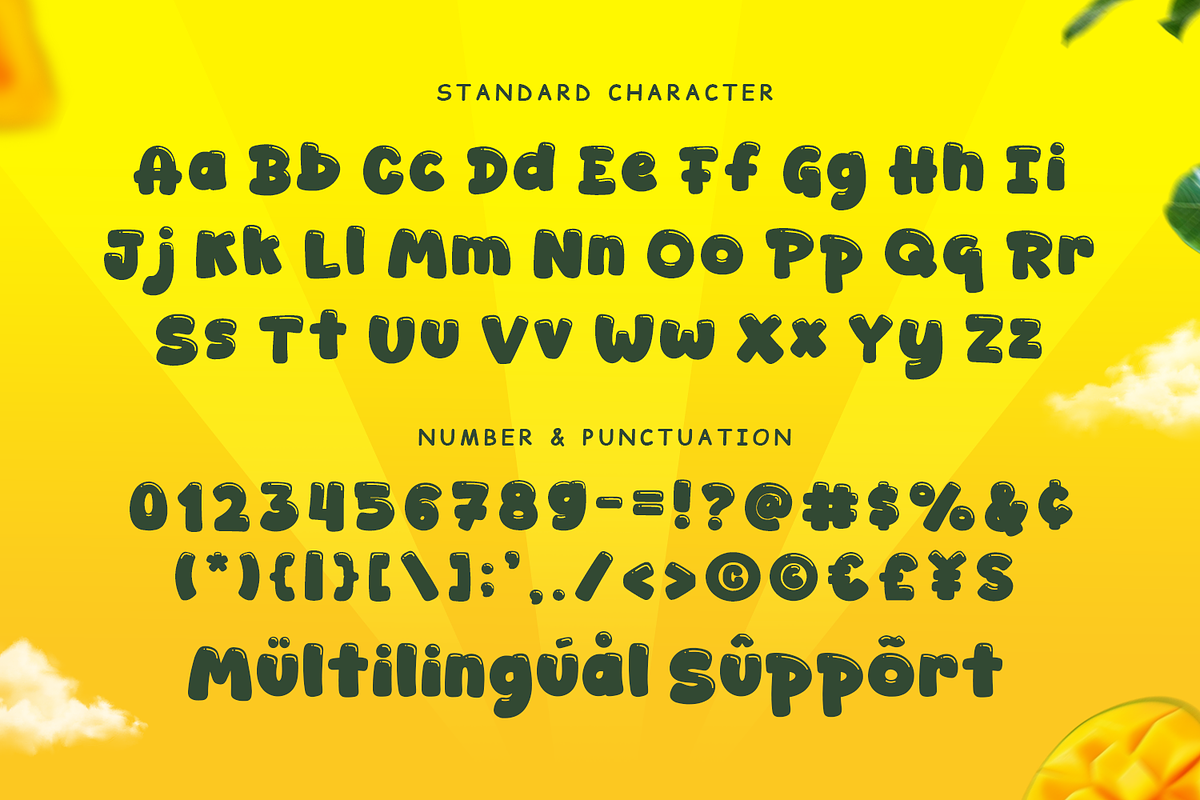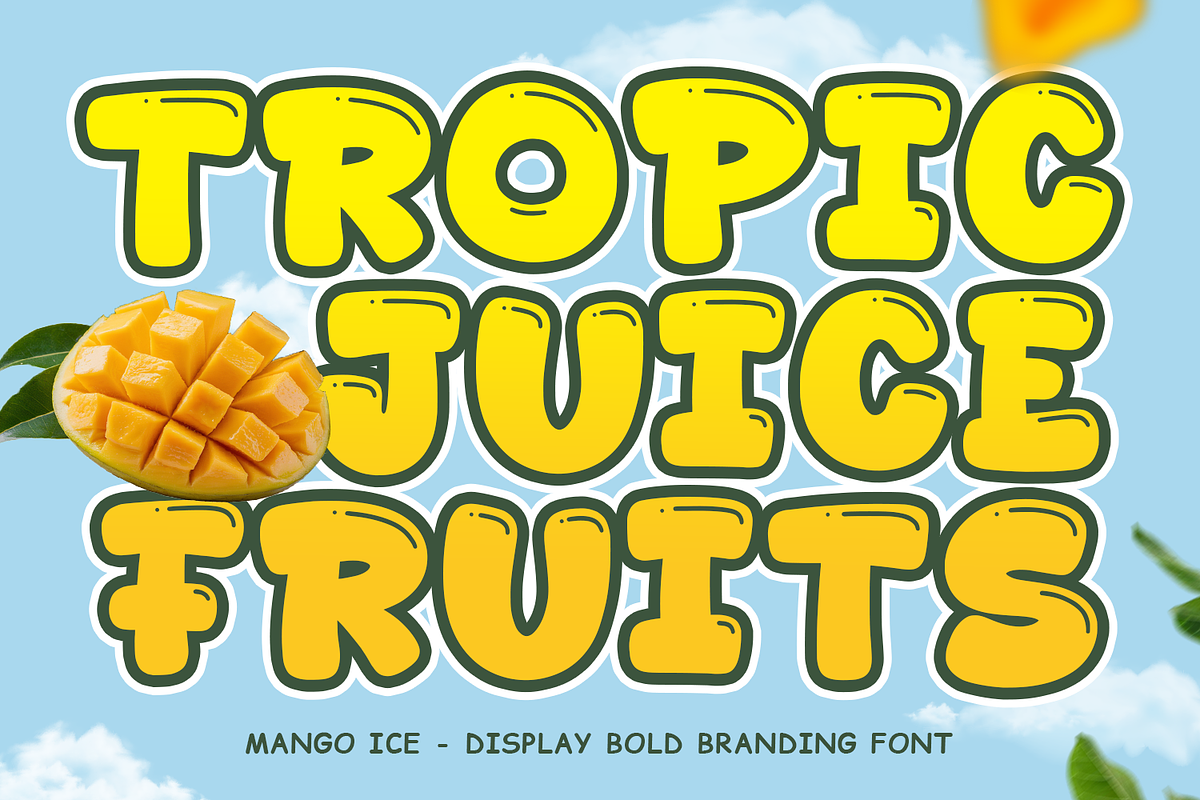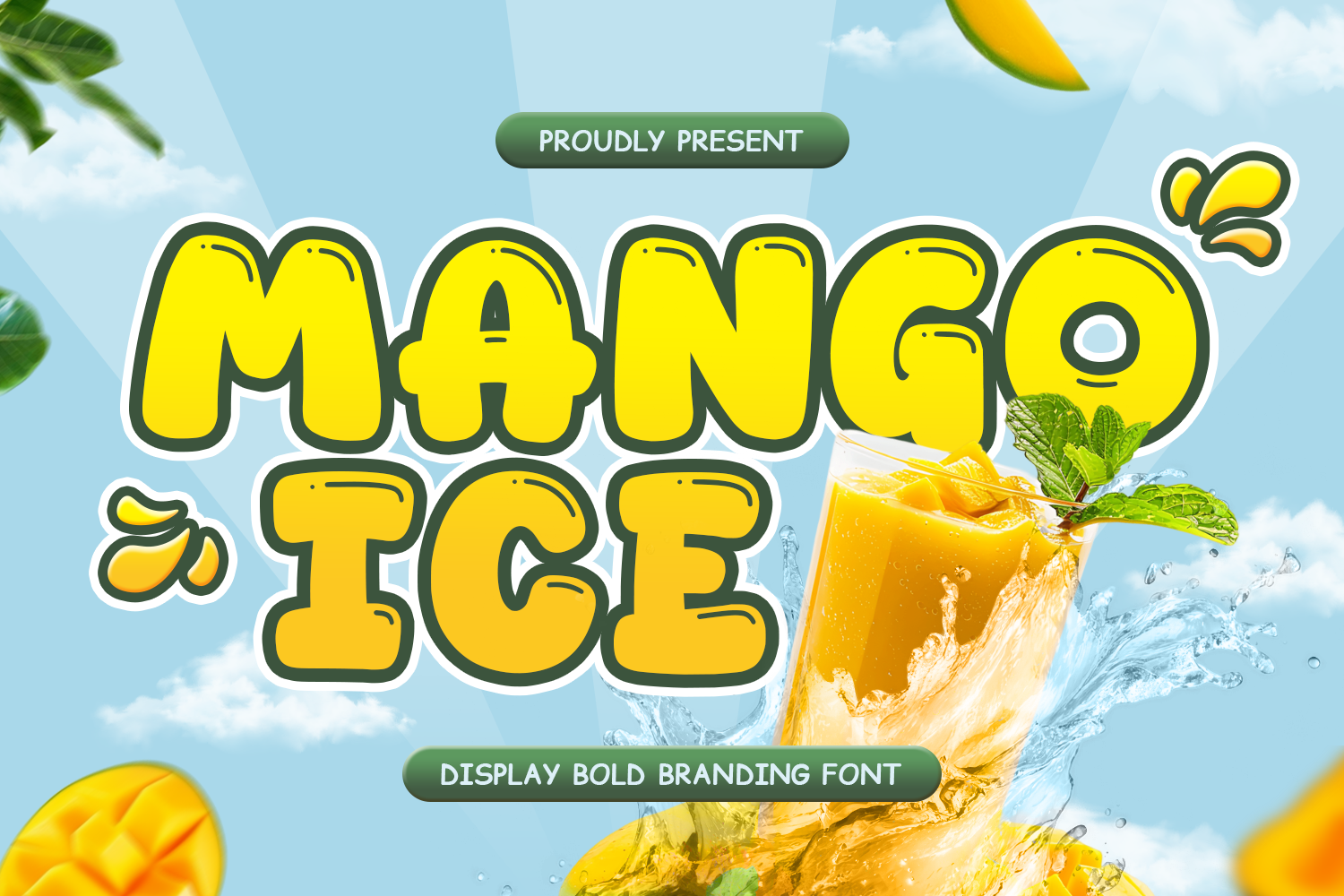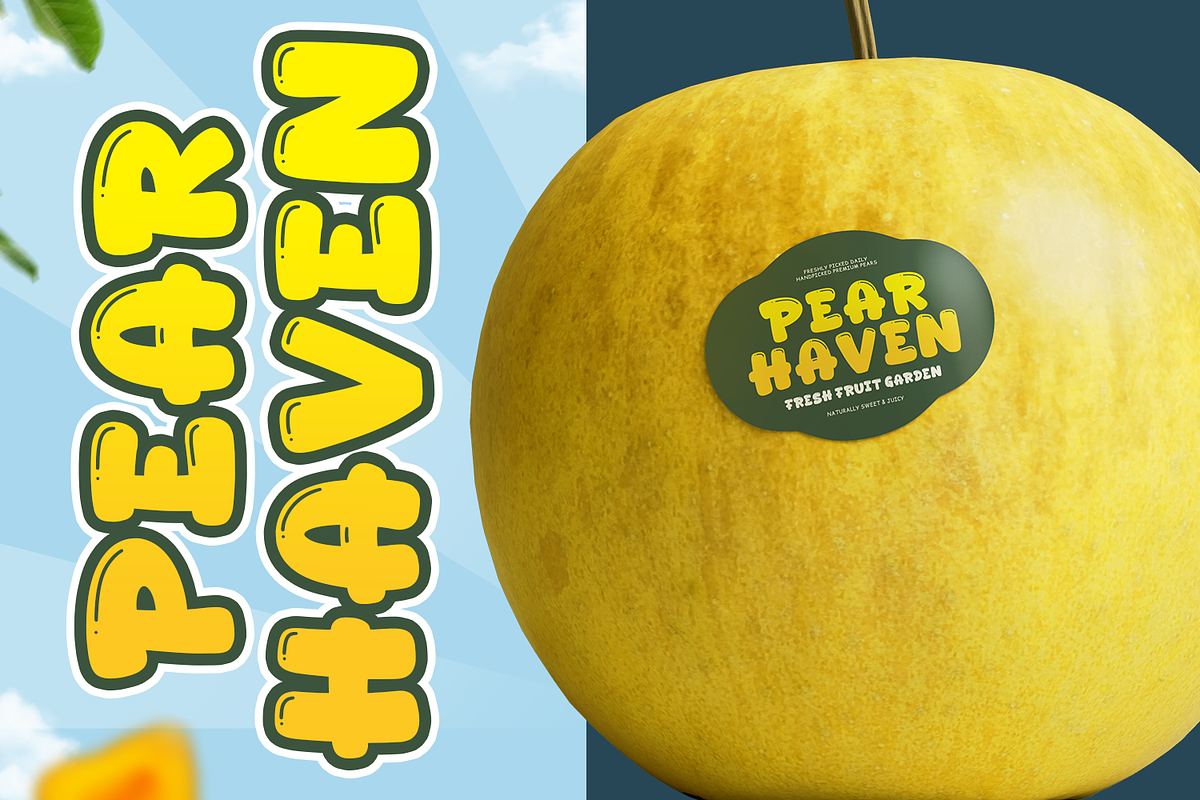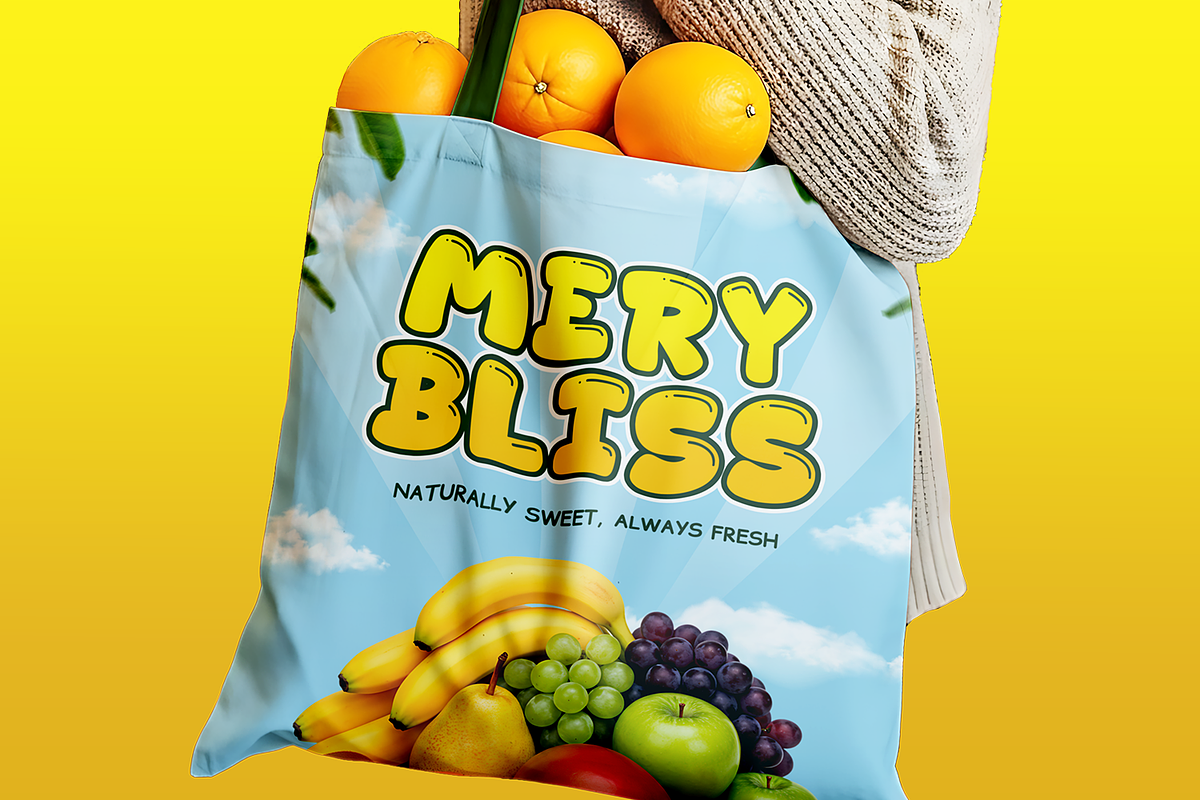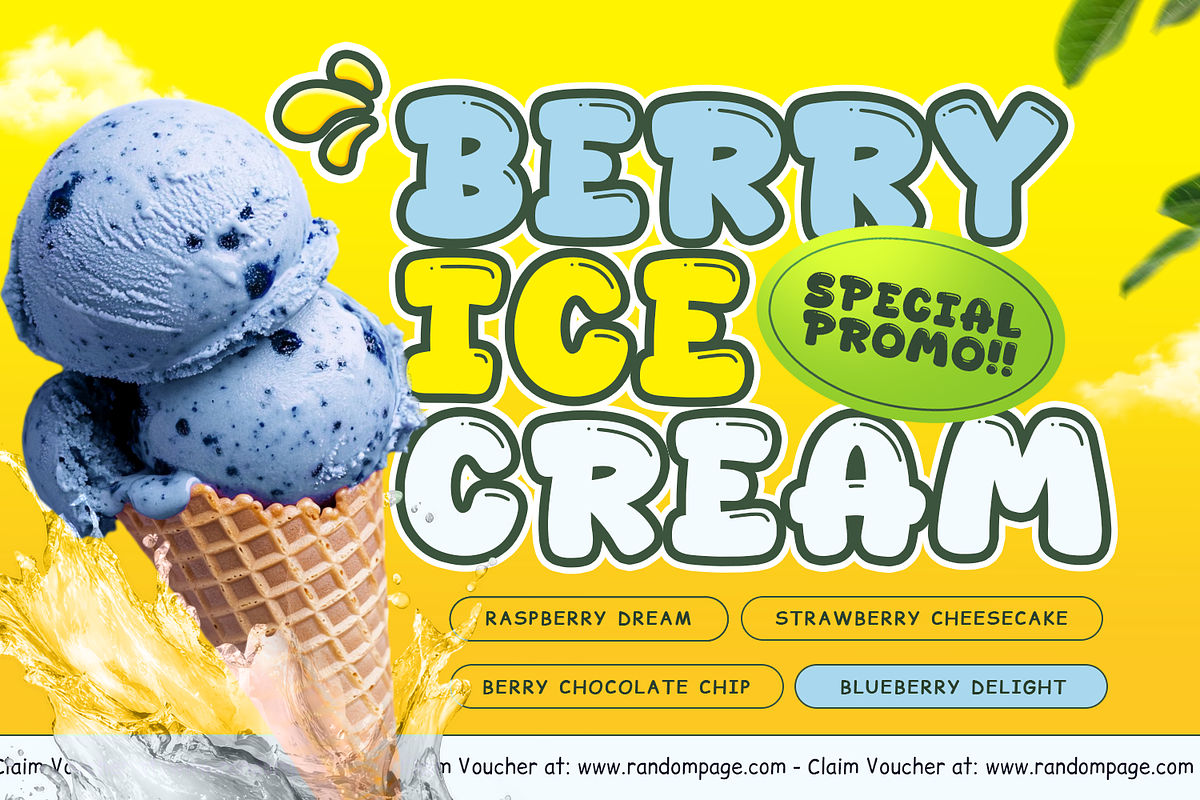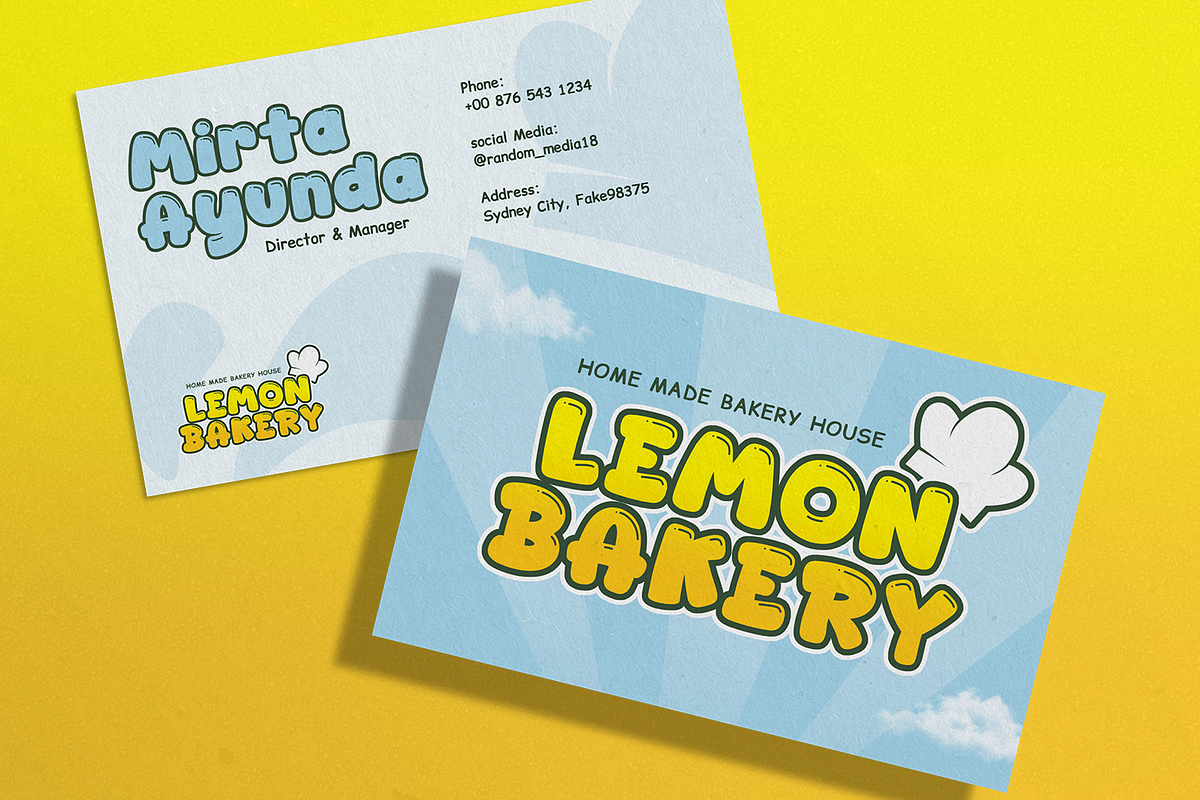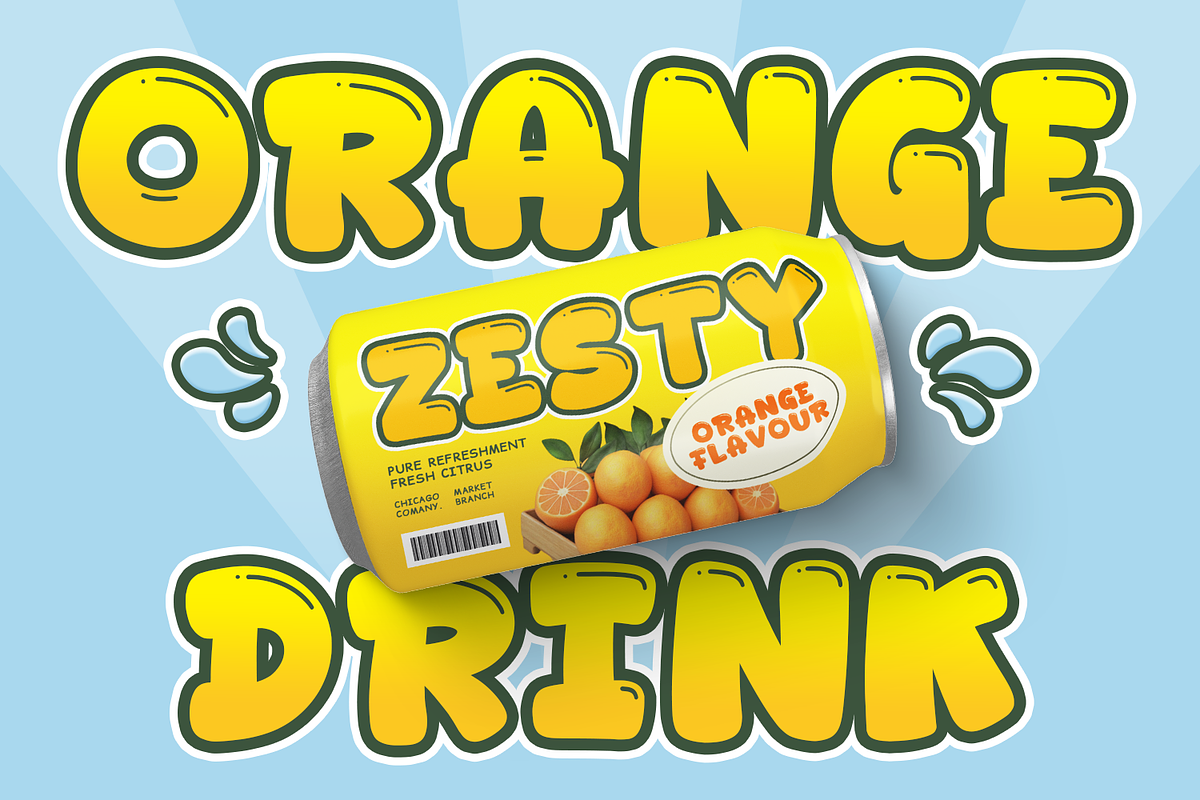
Mango Ice - Food Font
Mango Ice – Sweet & Fresh Food Font
Mango Ice is a fun and refreshing food font designed to bring sweetness, energy, and playful charm into your creative projects. Inspired by delicious tropical desserts and fruity treats, this font delivers a cheerful and eye-catching style that instantly makes designs feel more lively and appetizing.
Crafted with smooth curves and playful letterforms, Mango Ice combines a cute and modern aesthetic with excellent readability. Its friendly appearance creates a fresh and happy atmosphere, making it perfect for food branding, beverage packaging, dessert promotions, and colorful creative designs.
This font is ideal for food-related projects such as ice cream branding, juice labels, café menus, snack packaging, restaurant promotions, bakery designs, and social media content. The playful style adds warmth and personality while helping products look more attractive and memorable.
Mango Ice works beautifully for logos, posters, stickers, mugs, t-shirts, product packaging, menus, and promotional materials. Its fresh and sweet character helps create designs that feel fun, delicious, and visually engaging for customers of all ages.
The font is also perfect for crafting and DIY projects including Cricut creations, SVG files, handmade stickers, party decorations, and custom merchandise. Whether used in print or digital media, Mango Ice brings a bright and delightful touch to every design.
Sweet Food Style
Playful letterforms inspired by fresh desserts and tropical treats.
Fun & Refreshing
Designed to create cheerful and energetic visual designs.
Clear & Readable
Easy to read while maintaining a cute decorative personality.
Versatile Food Font
Perfect for food branding, packaging, and promotional projects.
Craft-Friendly Design
Excellent for Cricut, SVG files, DIY crafts, and handmade products.
Includes extended multilingual characters for global creative use.
• Food & Beverage Branding
• Ice Cream & Dessert Designs
• Café & Restaurant Menus
• Snack & Product Packaging
• Posters & Promotional Materials
• Social Media Graphics
• Stickers & Merchandise
• DIY Crafts & Cricut Projects
• Kids & Fun Creative Projects
Create Sweet & Delicious Designs
If you are looking for a font that combines playful charm, fresh tropical vibes, and delicious food-inspired style, Mango Ice is the perfect choice. This font helps you create designs that feel colorful, cheerful, and irresistibly fun.